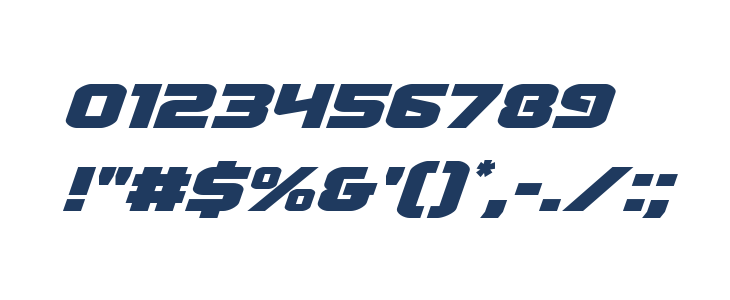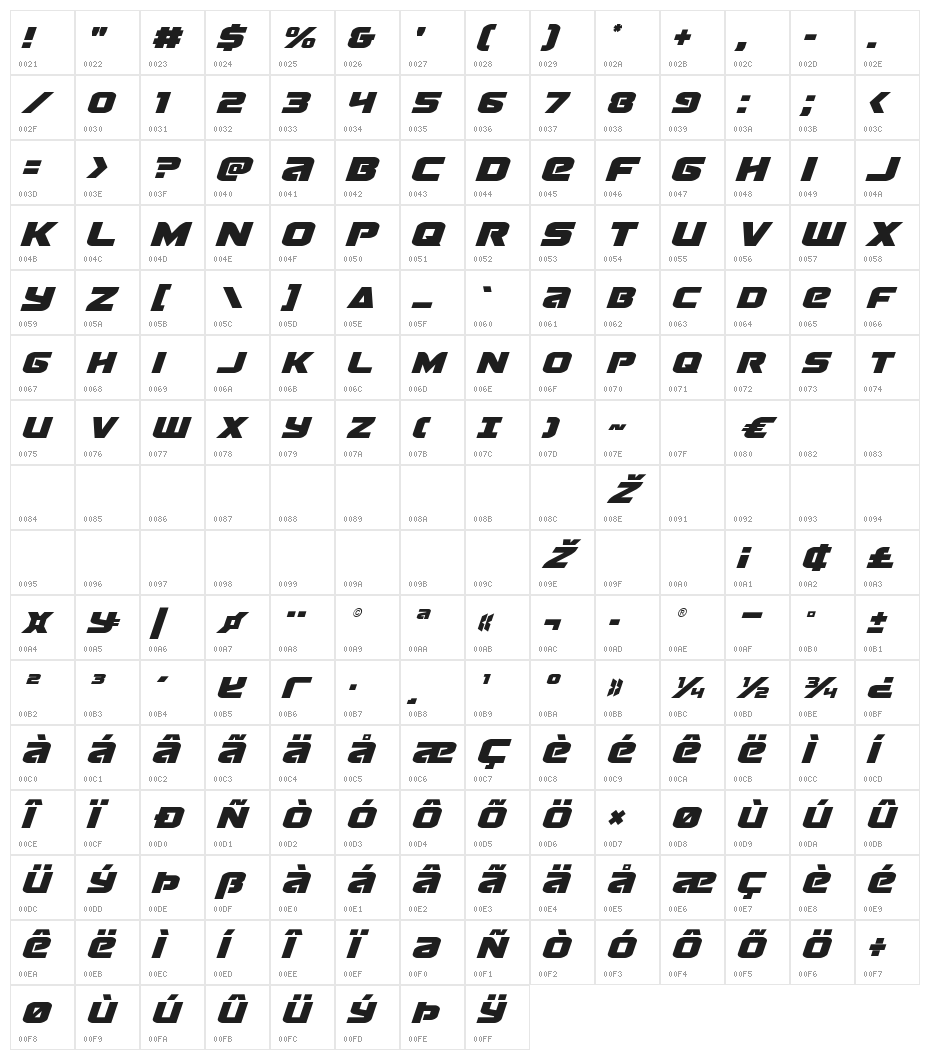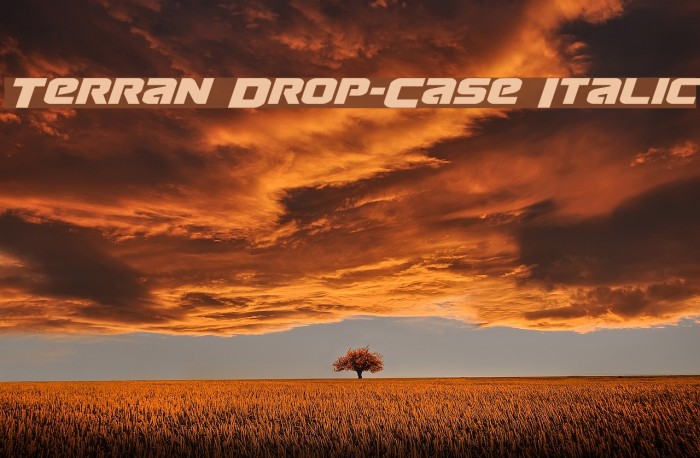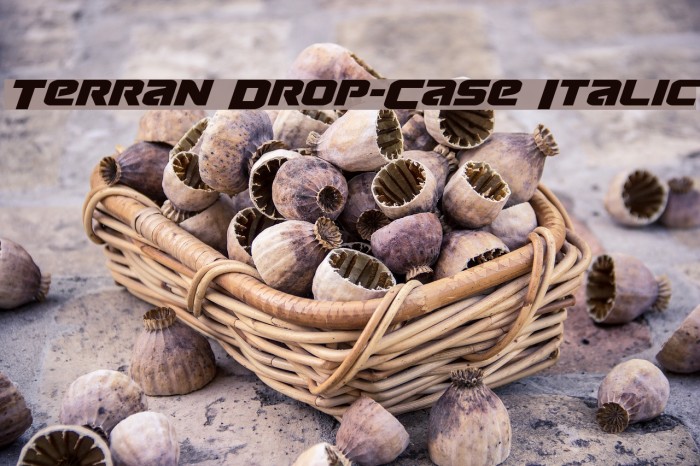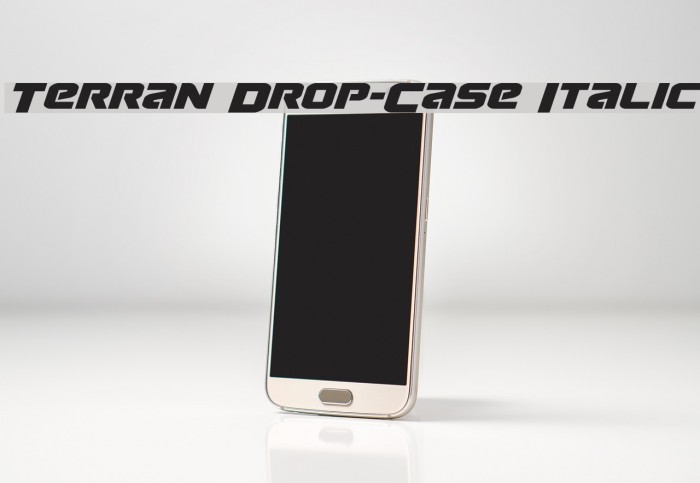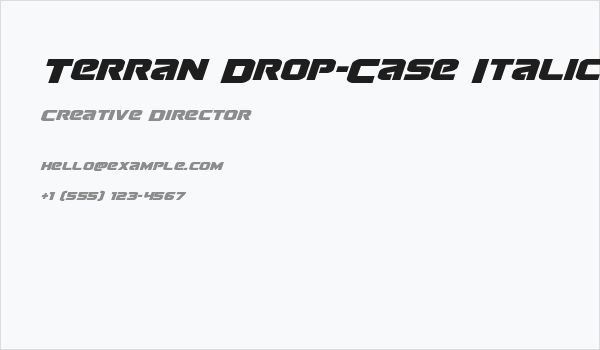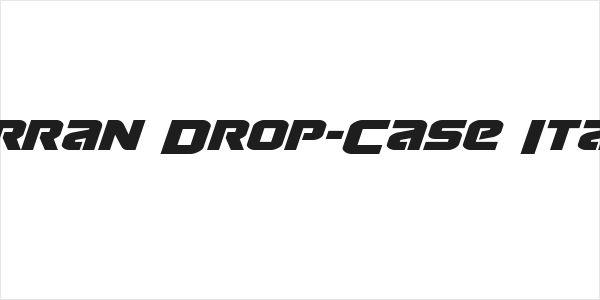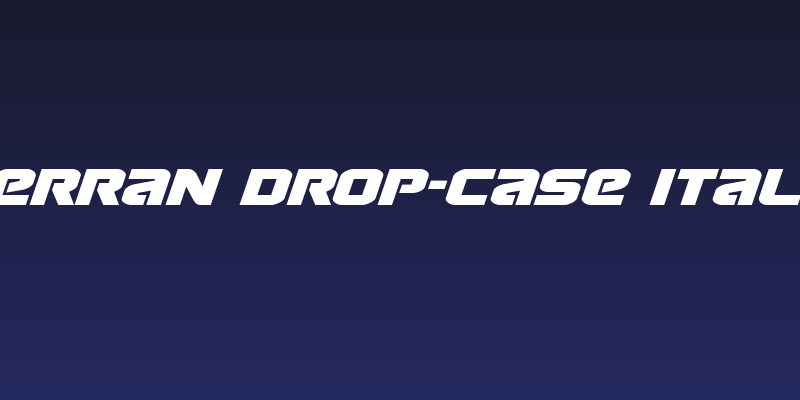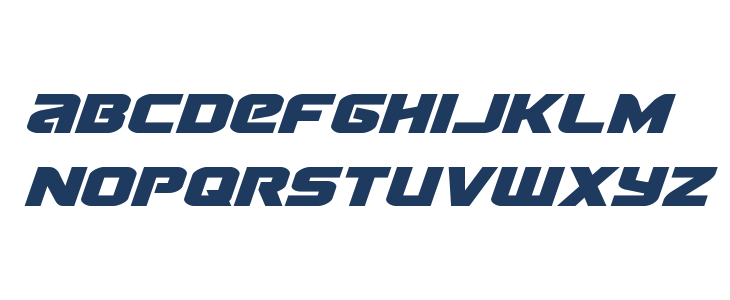
Terran Drop-Case Italic Font
Terran Drop-Case Italic Description
This font features a bold, dynamic style with a futuristic and angular design. The letters are italicized, giving a sense of motion and speed. The characters are wide and have a strong presence, making them ideal for impactful headlines or titles. The sharp edges and geometric shapes contribute to a modern and sleek appearance. The numbers and special characters maintain the same bold and angular aesthetic, ensuring consistency across all text elements.
| Proposed Projects | Ideal for sci-fi themed projects, video game titles, technology branding, and dynamic posters. |